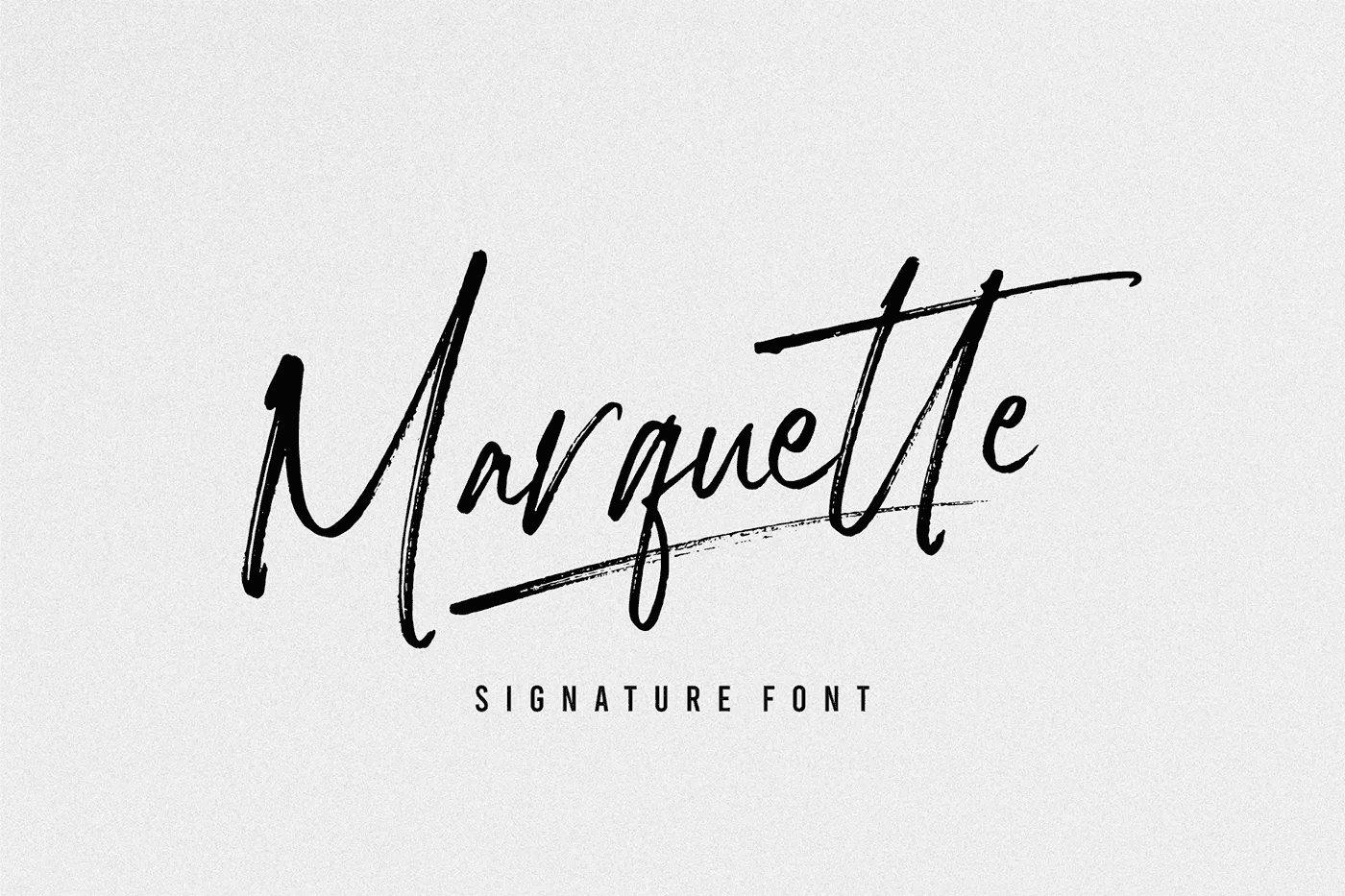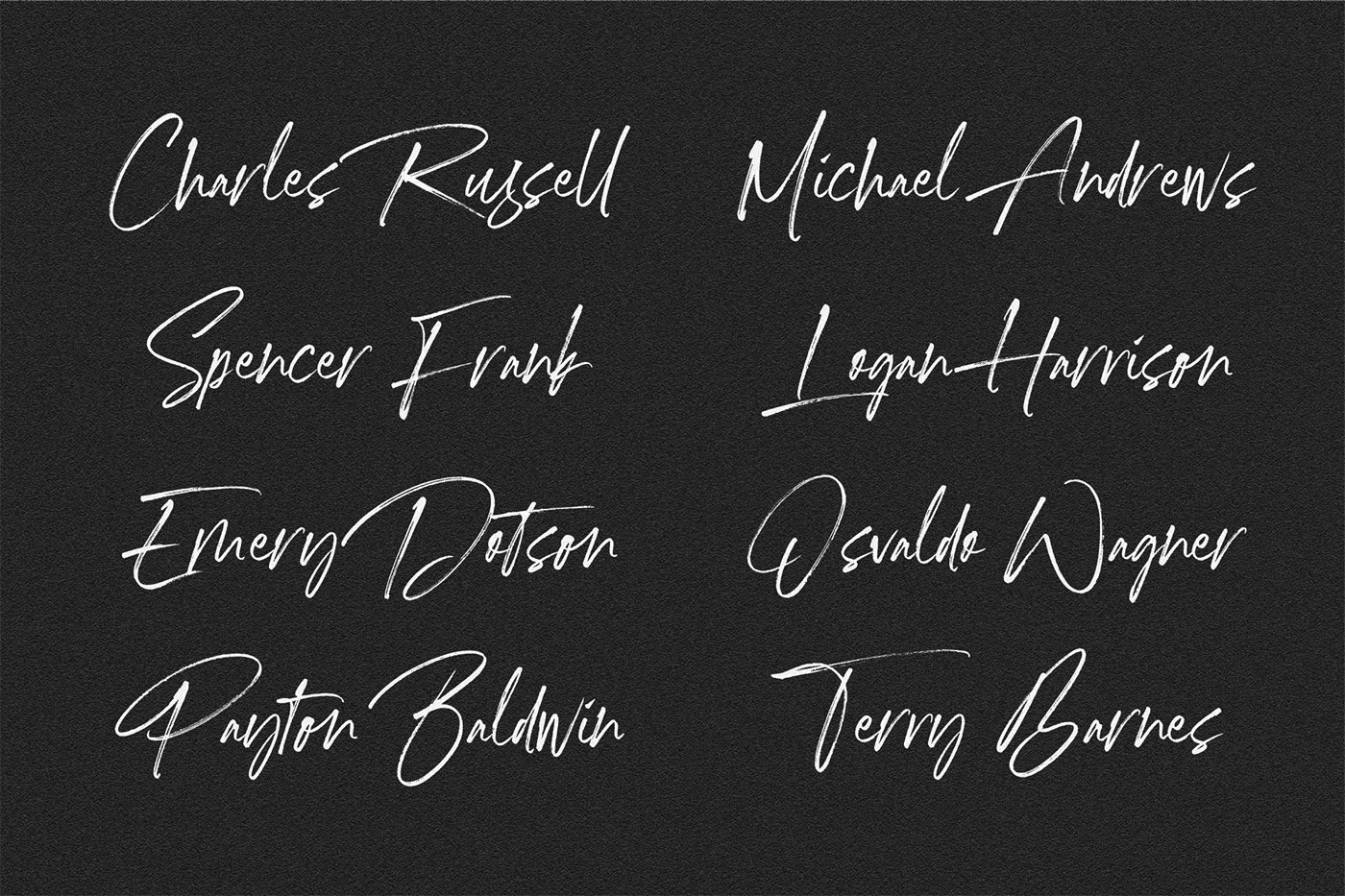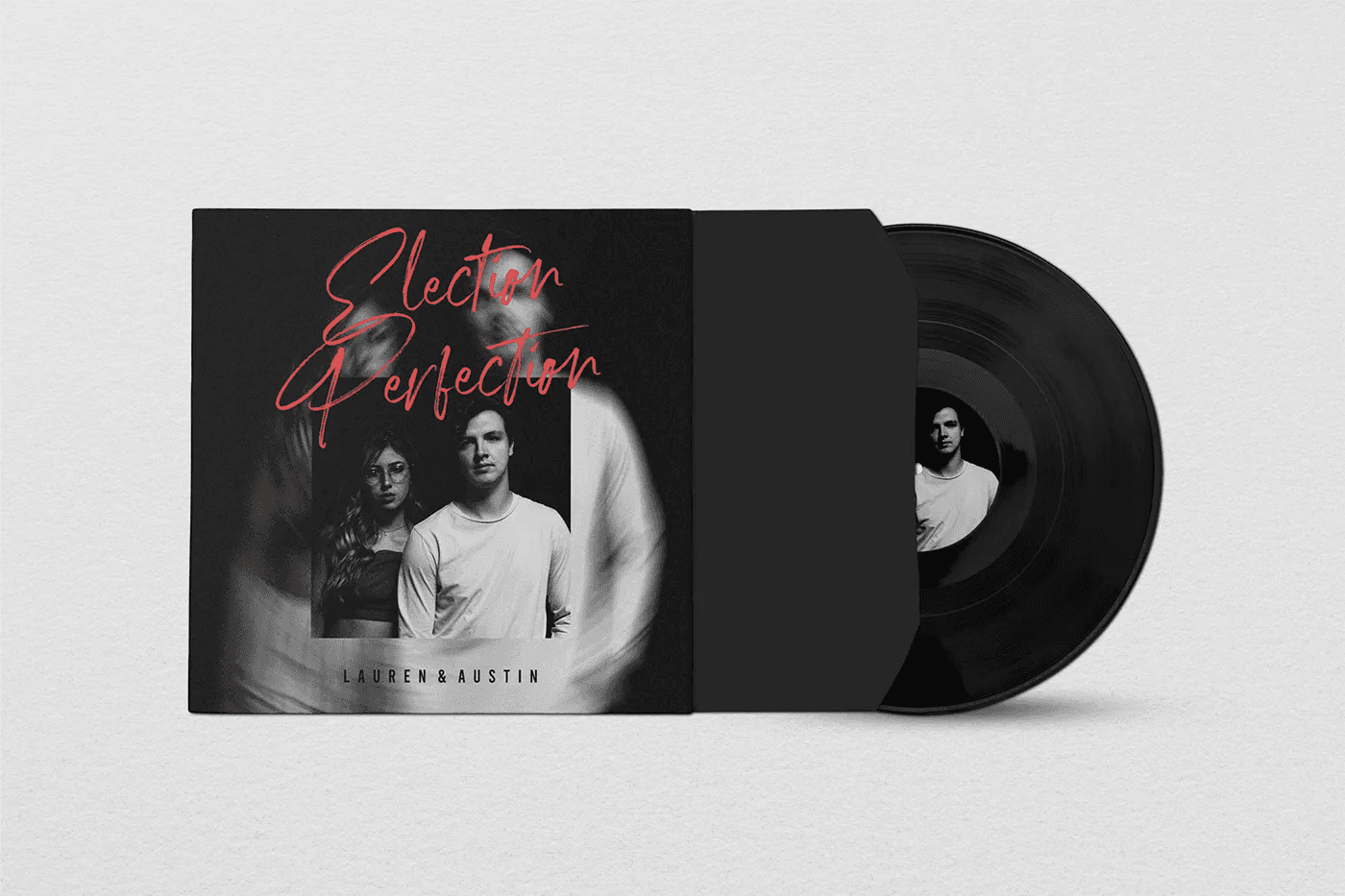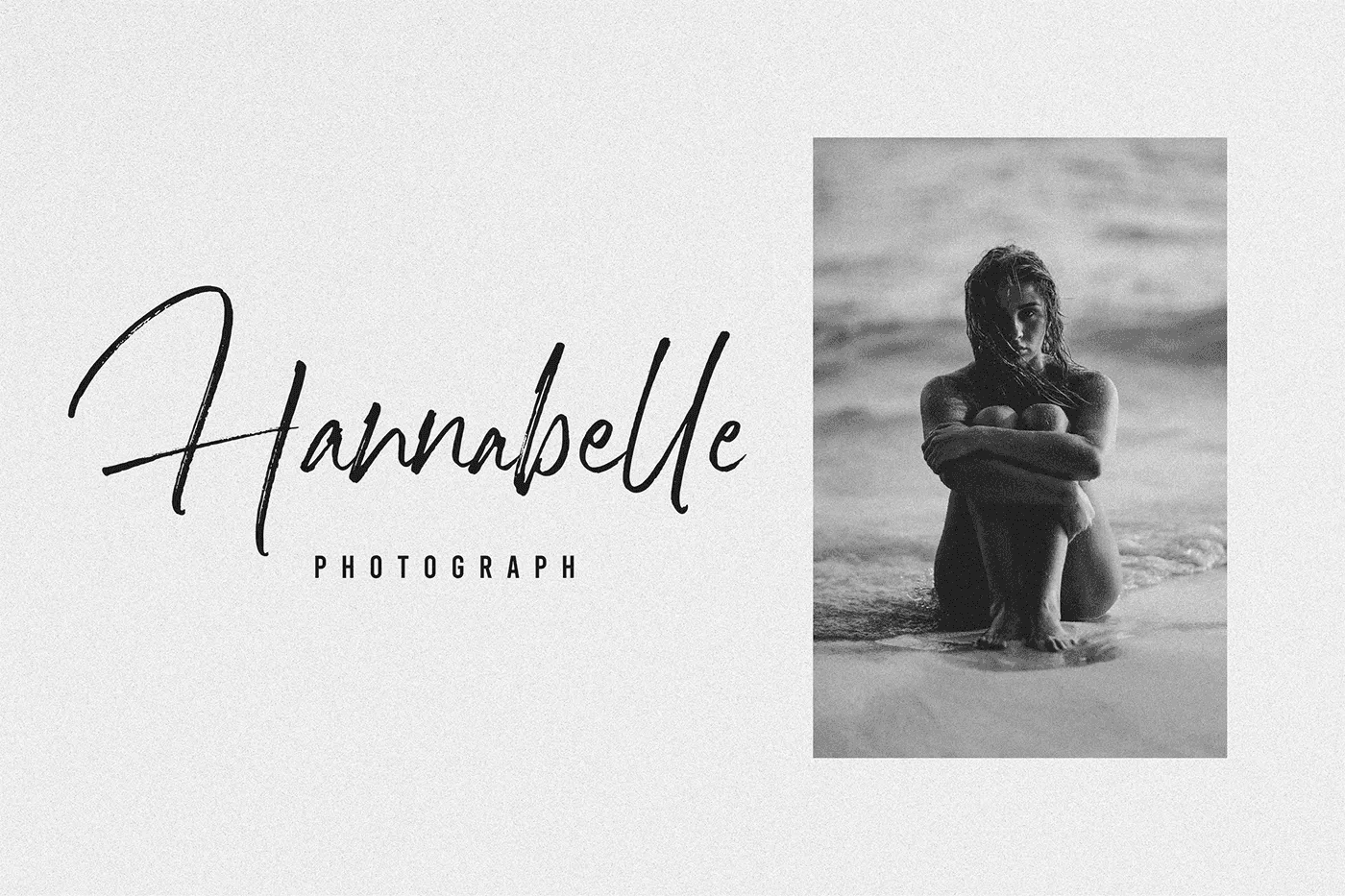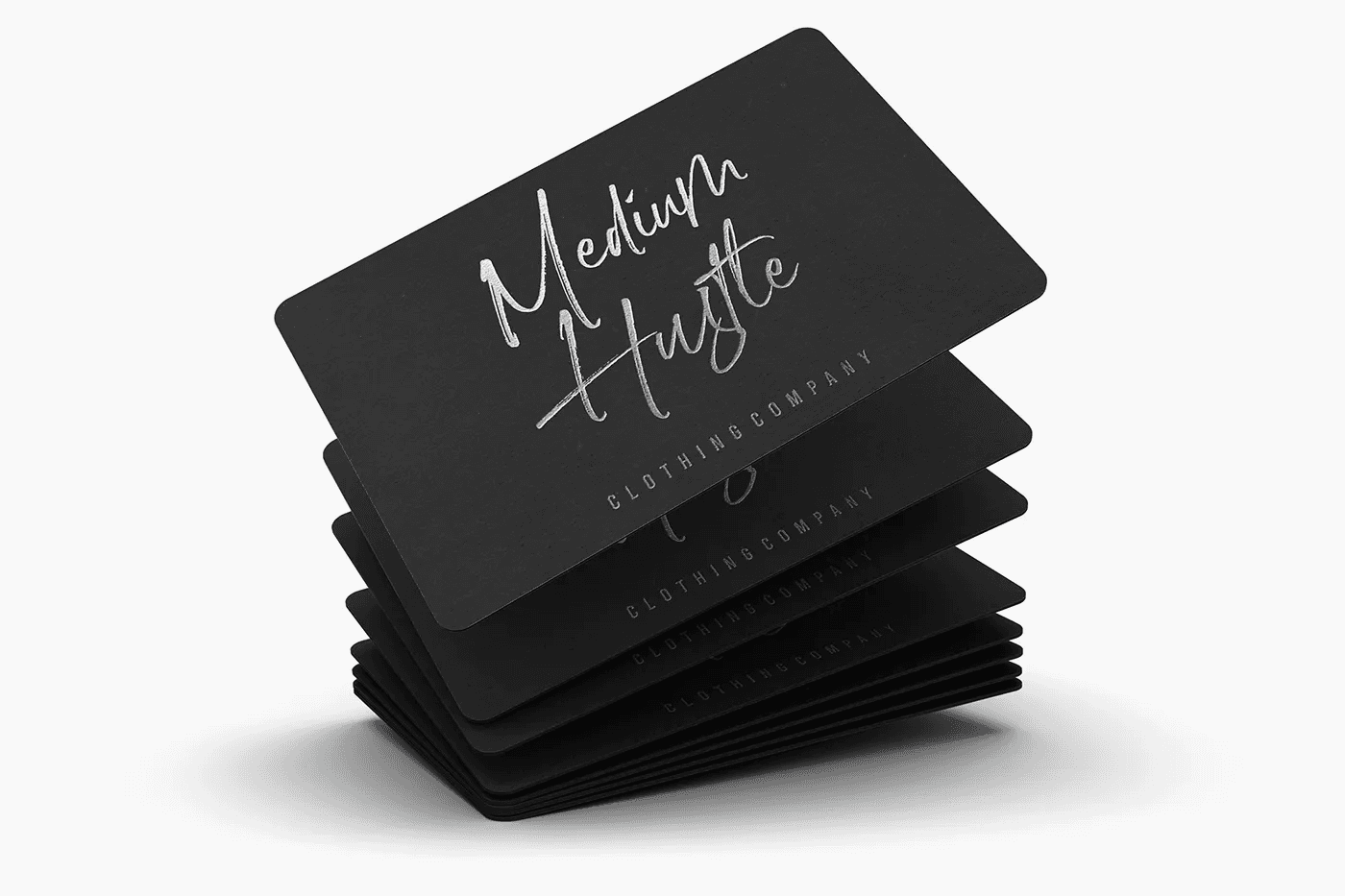
Guess who is back! This author is back again with an amazing signature font which is Free Marquette Signature Font. It is a brush signature font, it matches your works such as wedding invitations, gift cards, greeting cards, business cards, flyers, banners, magazines, and more. This font has a strong typeface character that will make your designs or projects look more professional. The OTF is a format file of this font, go download it and install it on your devices. So, this demo font comes for a personal use license, go get the premium version for more features.Thanks to Letteralle Studio for always sharing freebies with us. if you want to get more freebies from this author, go to his page, he supplies a lot of freebies. Also, if you want to get a newsletter from us twice a week, you can subscribe to us by filling your email in the blank box below.